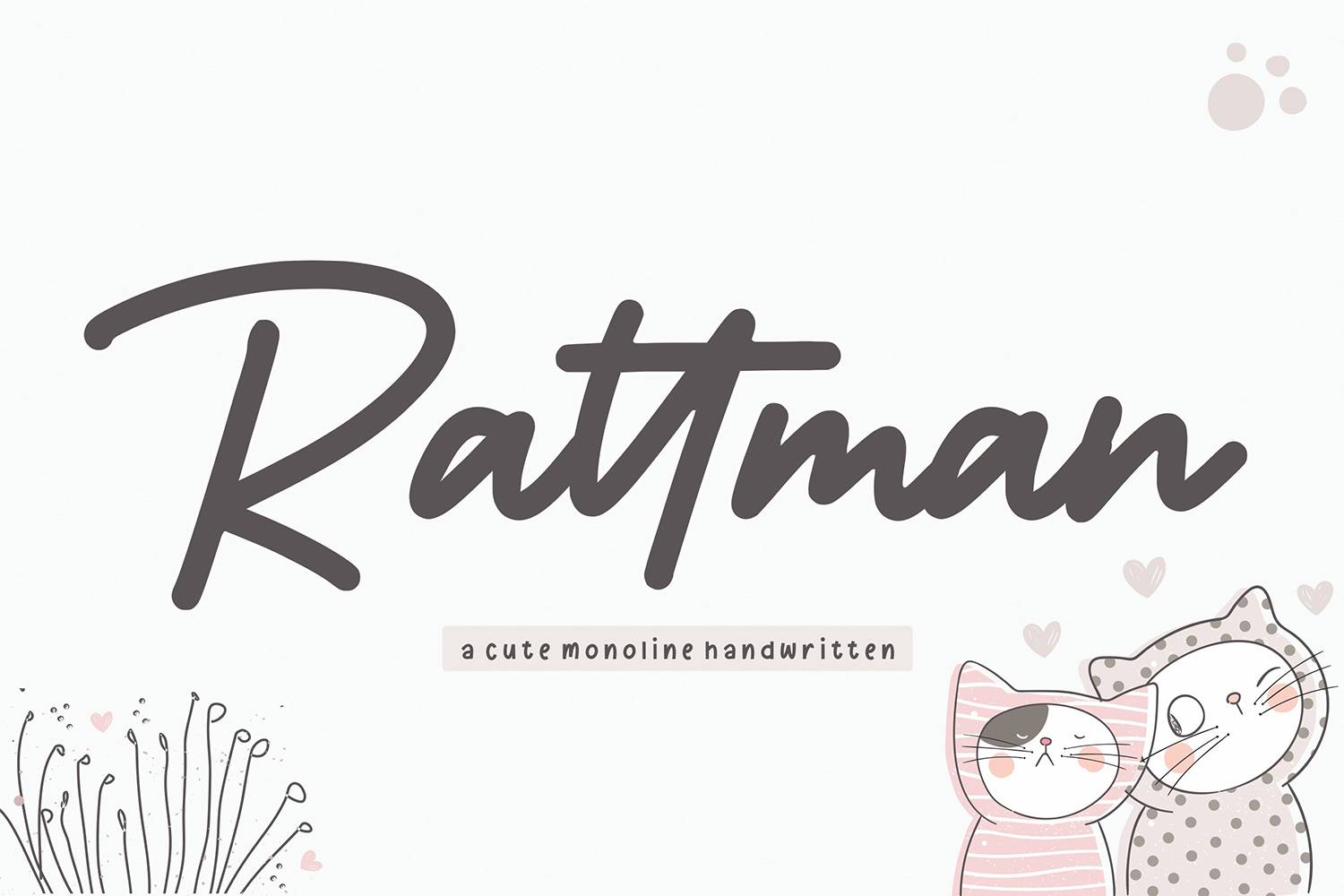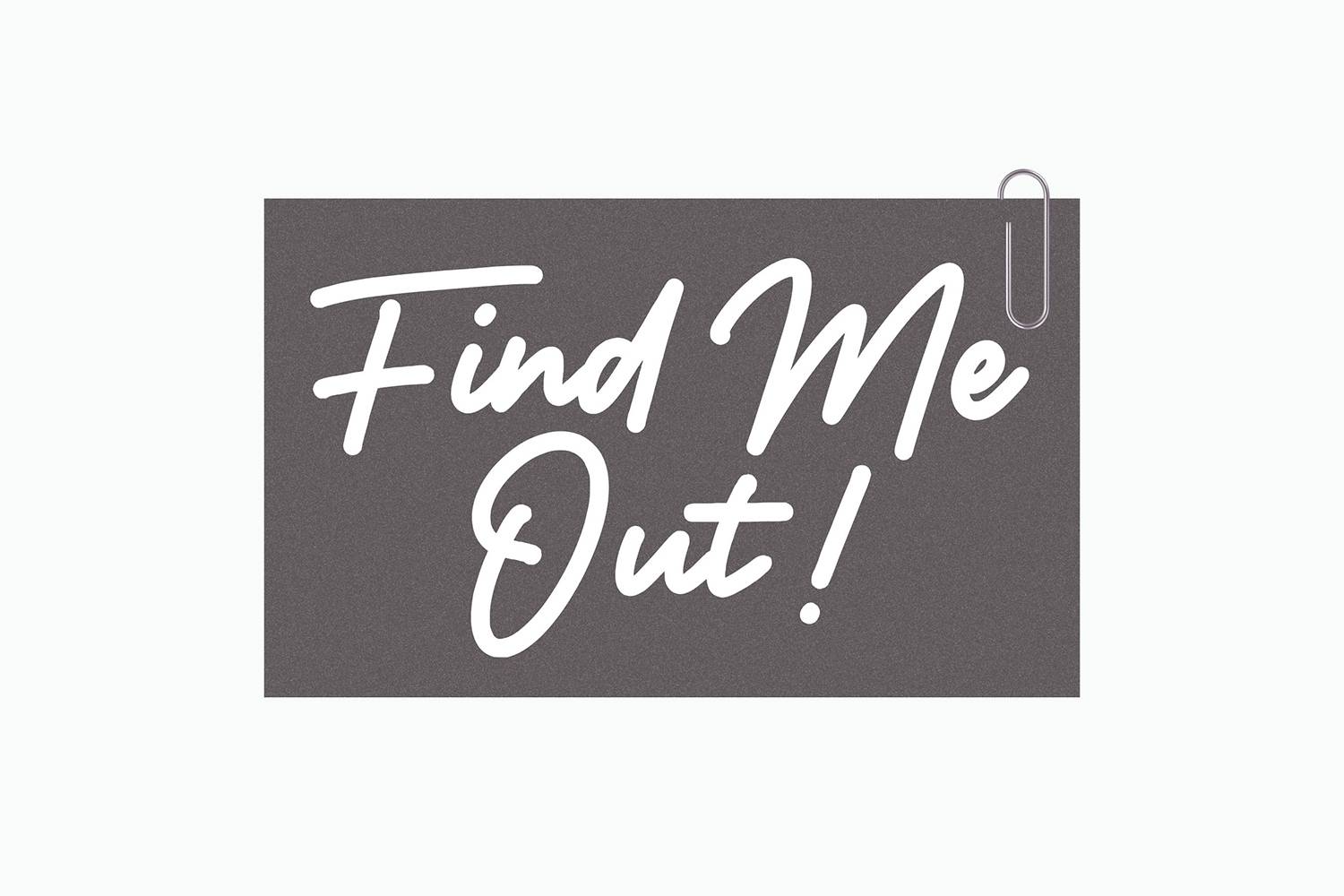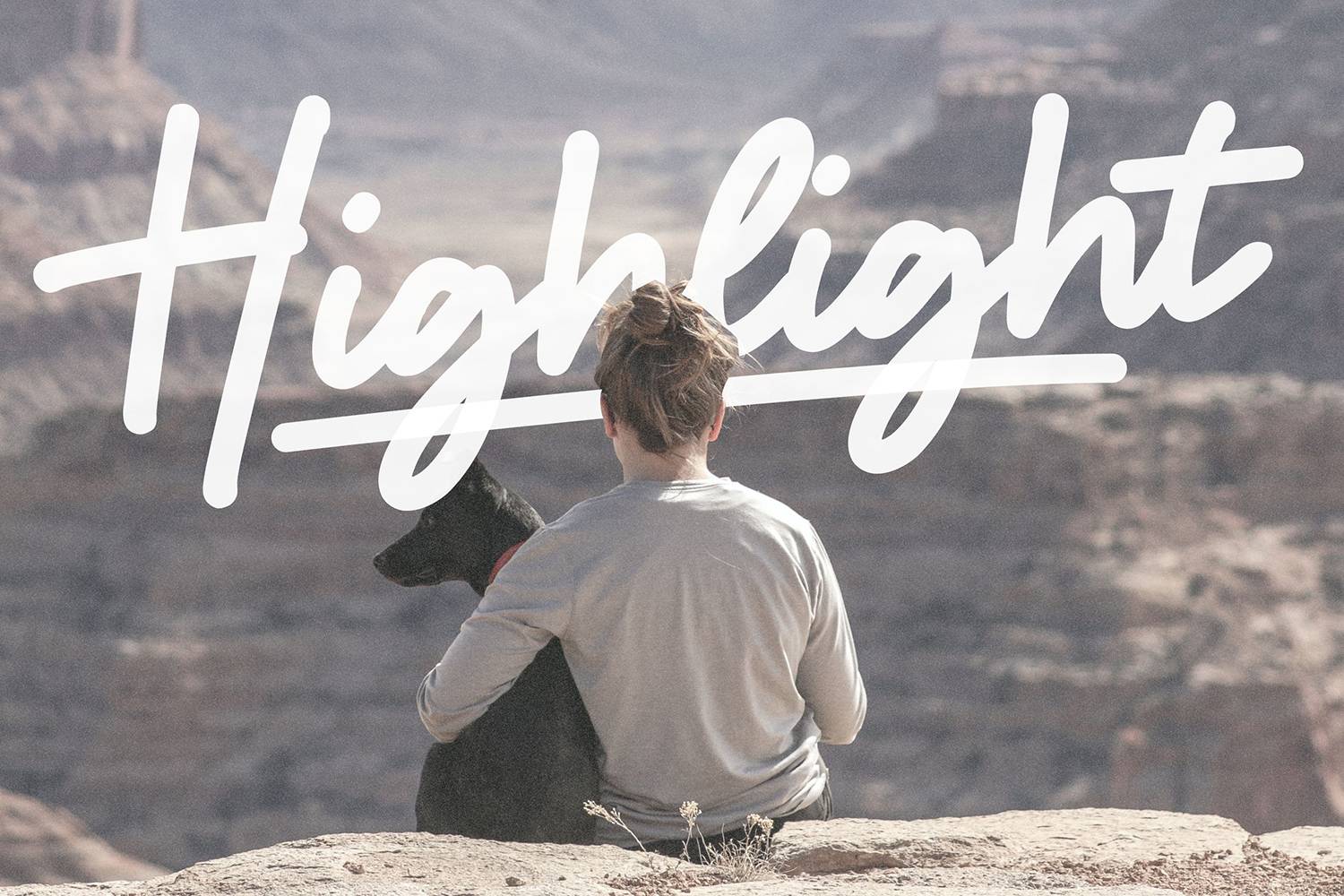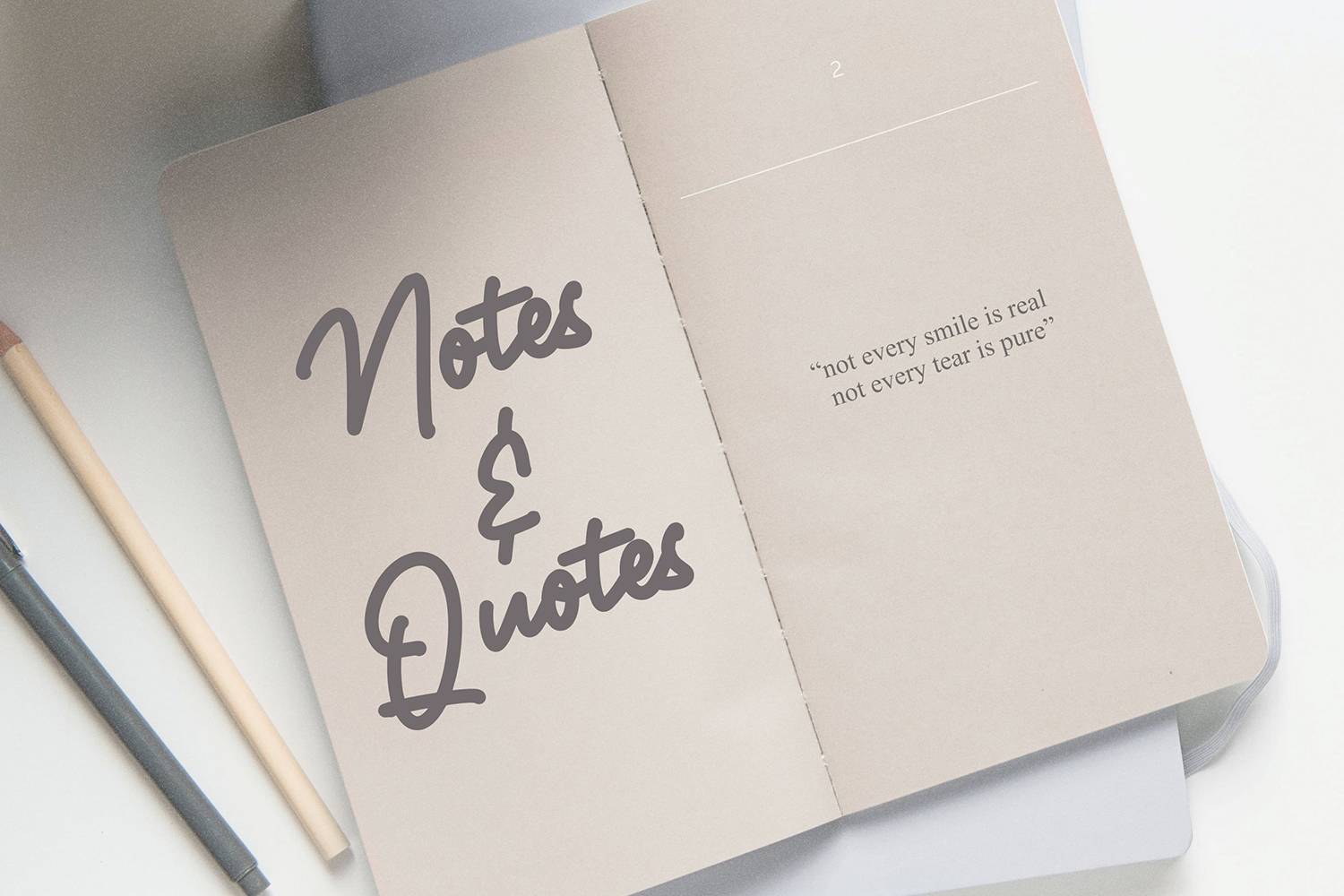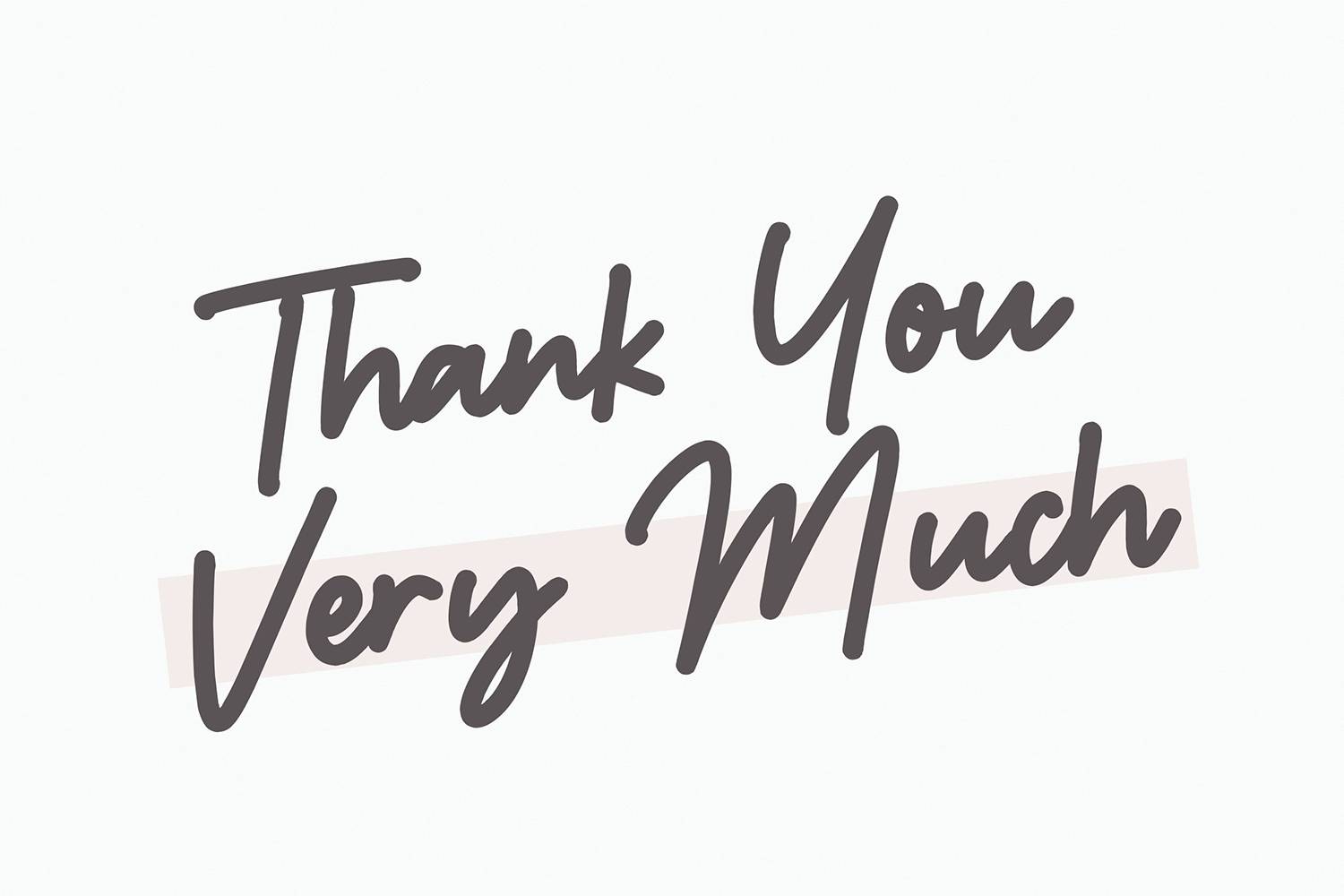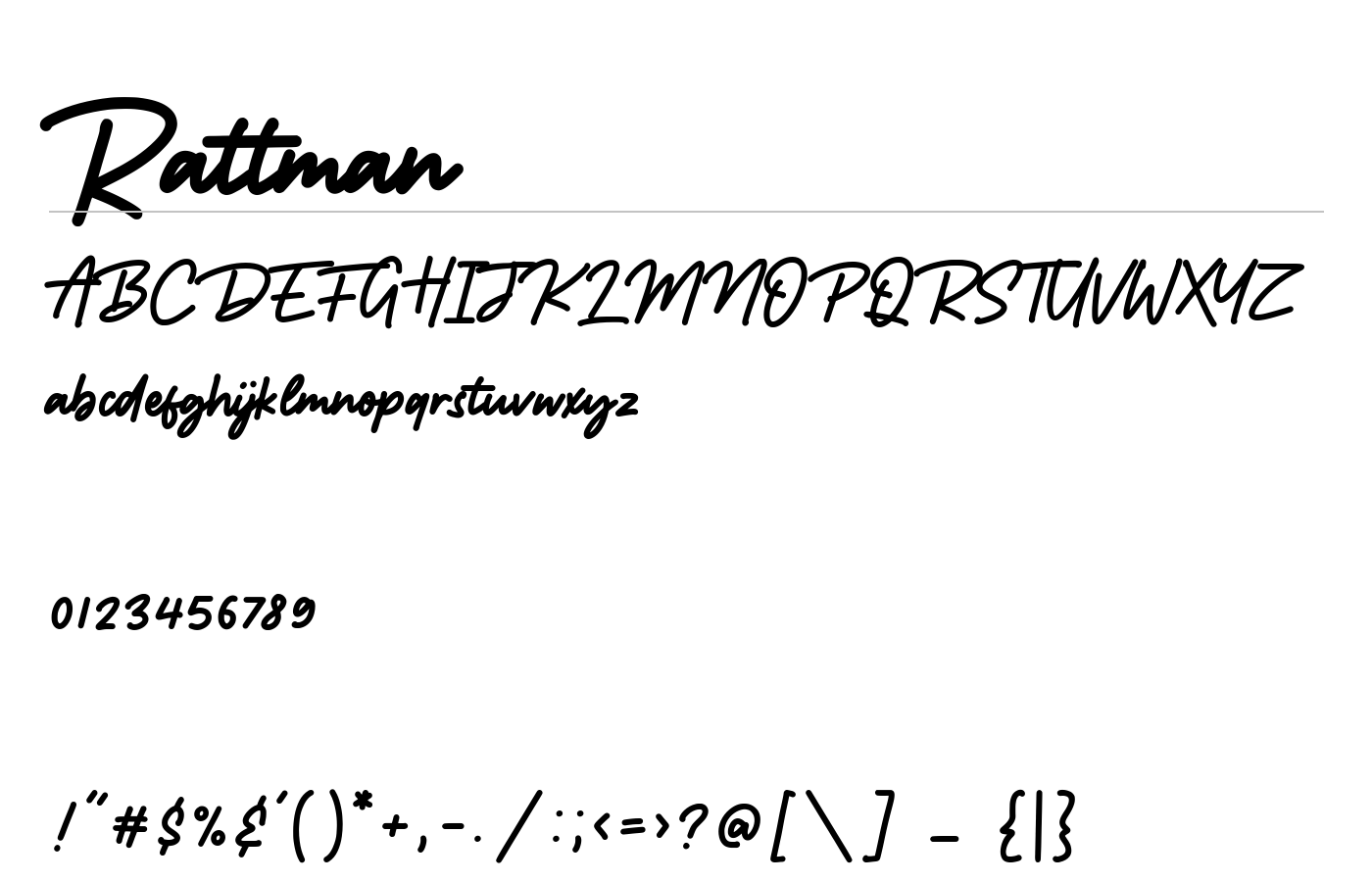
Rattman is a lively and casual script font featuring smooth, connected strokes with a slightly bold and rounded style that conveys friendly energy. Its dynamic letterforms are easy to read and work well for creative branding, informal invitations, and social media graphics. This font brings a warm, approachable feel ideal for playful yet polished design projects.
Rattman Font
About Rattman Font